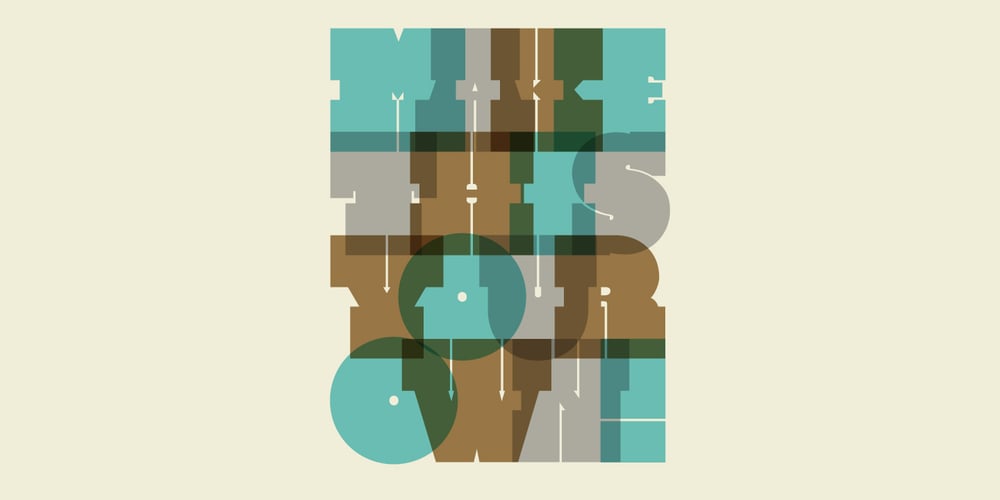
Nemek
Nemek font
Nemek Font Family was designed by Tom Grunwald and published by Nemek. Nemek contains 4 styles and family package options. Tom Grunwald, aspiring philosopher and tattoo connoisseur, designed Nemek in early 2013. The inspiration came when he had a dream one night in which an eagle took flight from a mountaintop, soaring through the skies as the wind oscillated his feathers. The eagle landed at Tom’s feet and gave him a scroll. On this scroll was the Declaration of Independence written in the most beautiful typeface Tom had ever seen – Nemek. Tom woke from this dream and began designing. He doesn’t necessarily see himself as the creator of this font, but perhaps the interpreter from minds on the other side of his dreams. This typeface is great for letters, words, numbers, sentences, Declaration of Independence, soliloquies, paragraphs and resignation speeches. Nemek is modern contemporary. The family consists of two versions – one with holes and one without. It should be used at your discretion if you feel that your font needs holes.